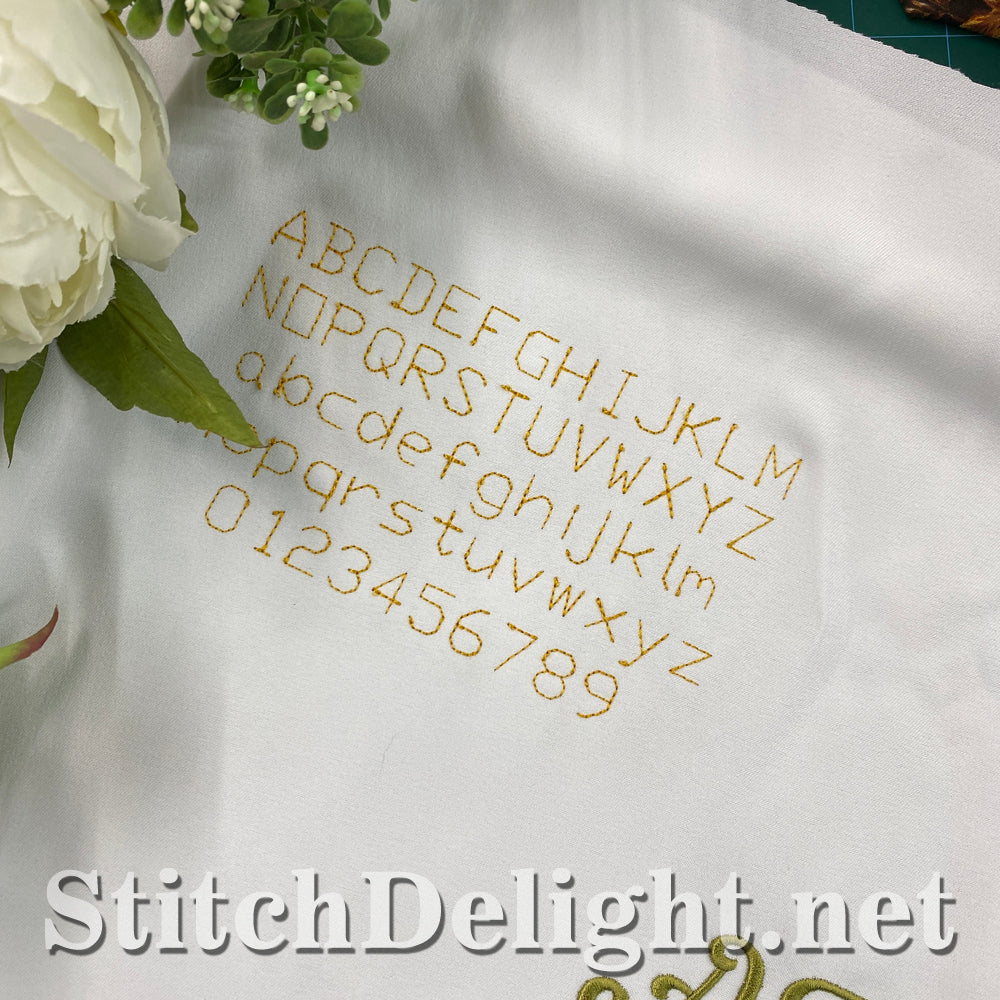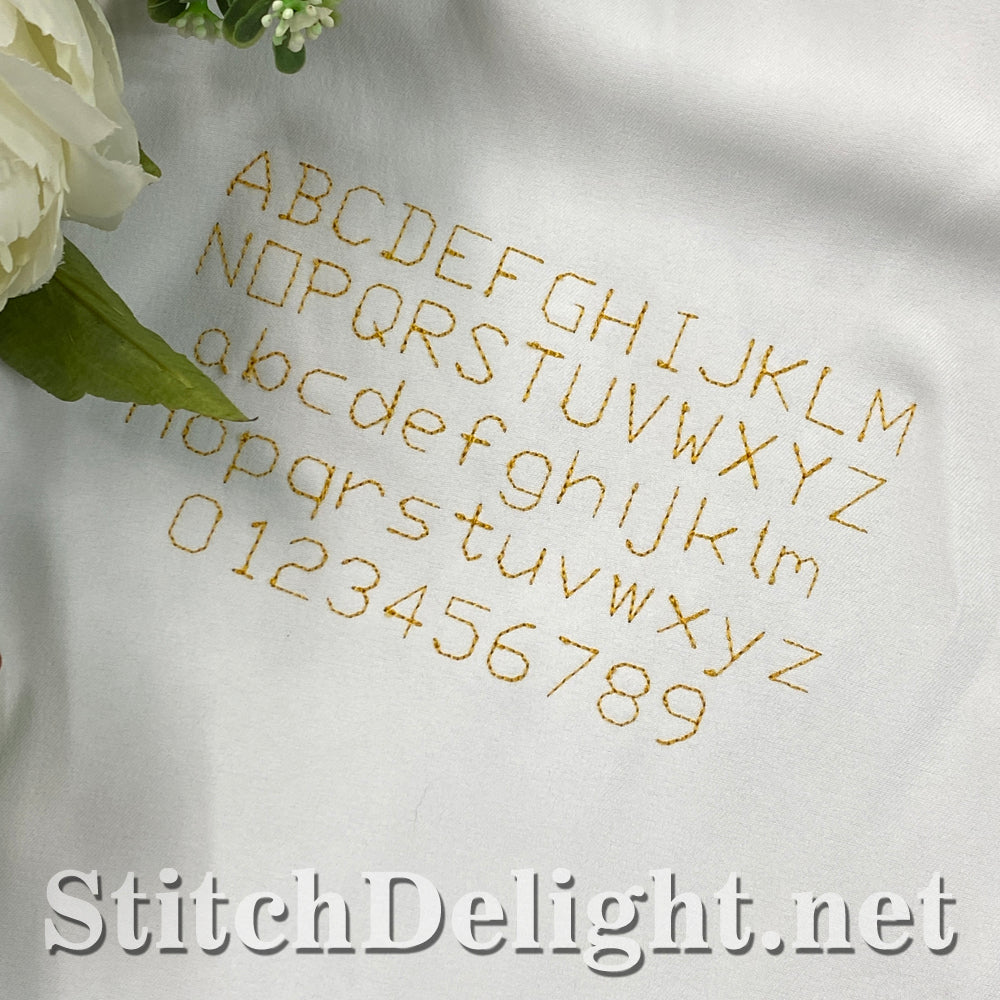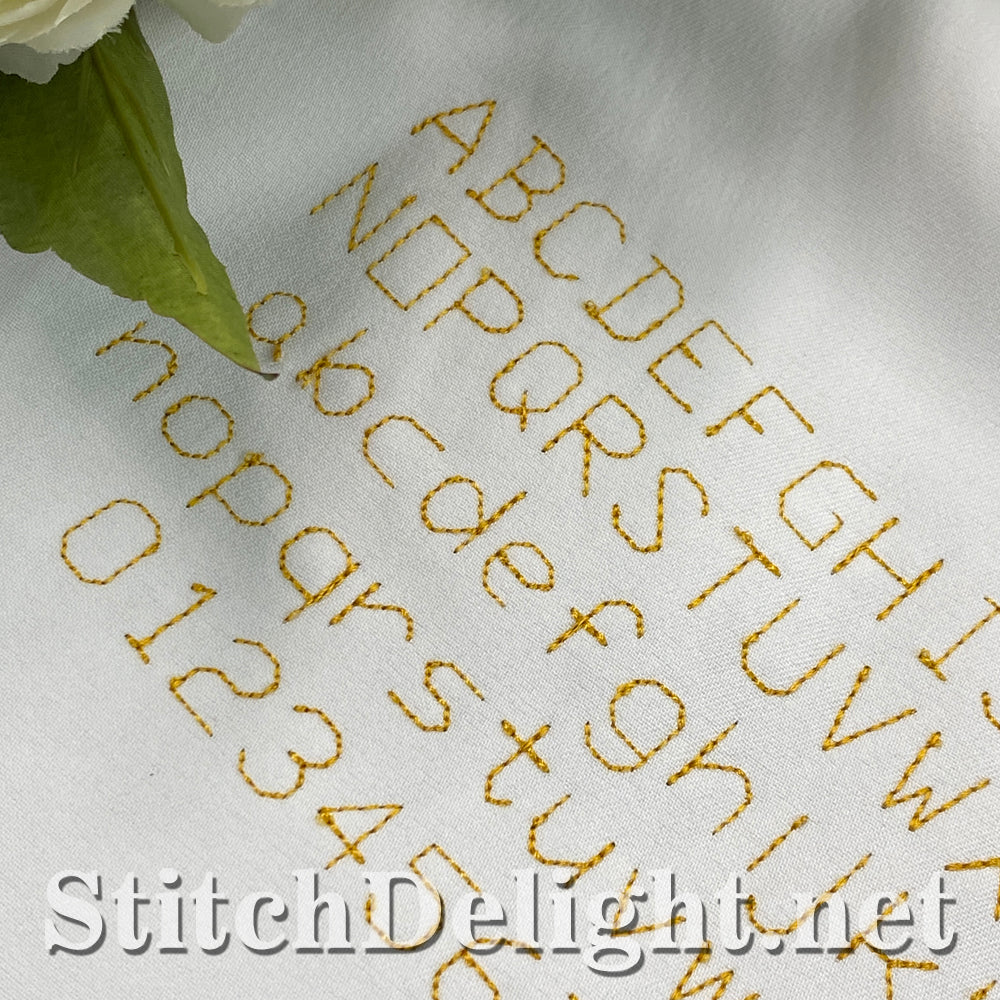
SDS5507 Line Font Half Inch
This is a tiny font with a letter height of just 1/2 Inch - perfect for small text on smaller projects or if you want a whole verse on or a recipe on a dish cloth.  BX Format included